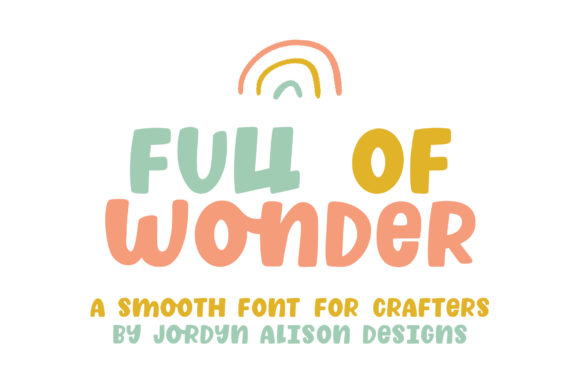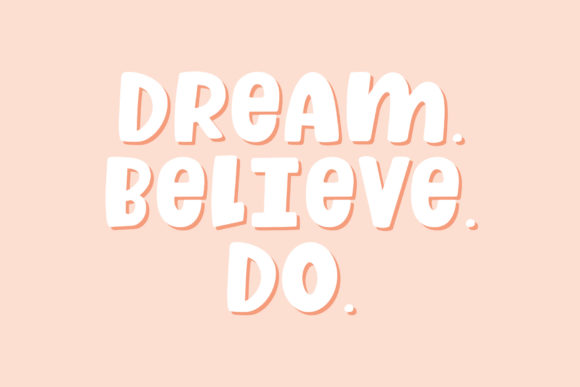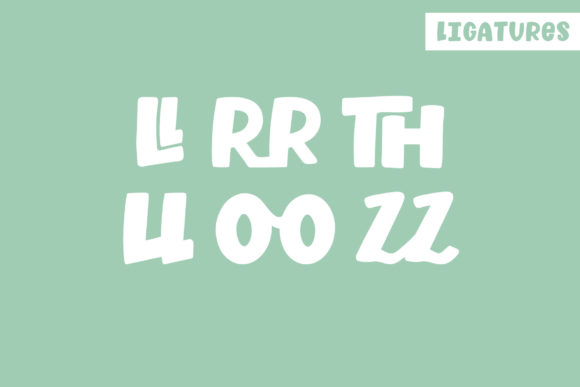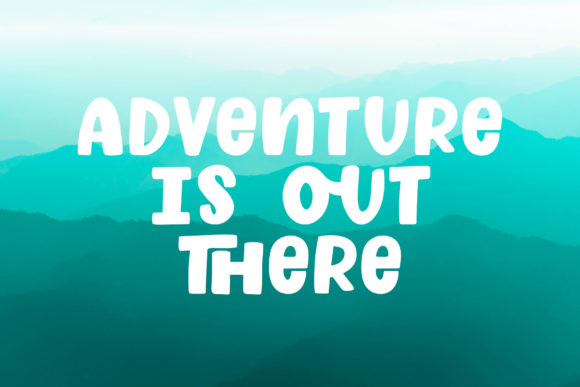
Full of Wonder Font: A Playful Display Font for Cute Cricut Crafts!
About the Full of Wonder Font
We are excited to introduce Full of Wonder Font, a must-have typeface for any serious designer. Full Of Wonder is a smooth and thick font with a whimsical twist. Fall in love with its playful charm!
Its playful charm makes it ideal for headlines, children’s books, branding projects for playful businesses (e.g., toy stores, ice cream shops), and packaging designs needing a touch of whimsy. However, its thickness and slightly irregular forms make it less suitable for body text or UI elements where high readability is paramount. Long paragraphs set in Full of Wonder would be difficult to read.
Pairing Full of Wonder with a clean sans-serif like Open Sans for body copy provides a strong contrast and enhances readability. For a more sophisticated feel, consider pairing it with a classic serif like Garamond for supporting text or logos. A simple geometric sans-serif could also work well, creating a modern yet playful feel.
The overall personality of Full of Wonder is friendly and approachable, yet bold and memorable. It’s a font that evokes a sense of fun and wonder, perfect for projects targeting a younger demographic or brands aiming for a lighthearted, approachable image.
Full of Wonder Font Usage Examples
Full of Wonder Font Example